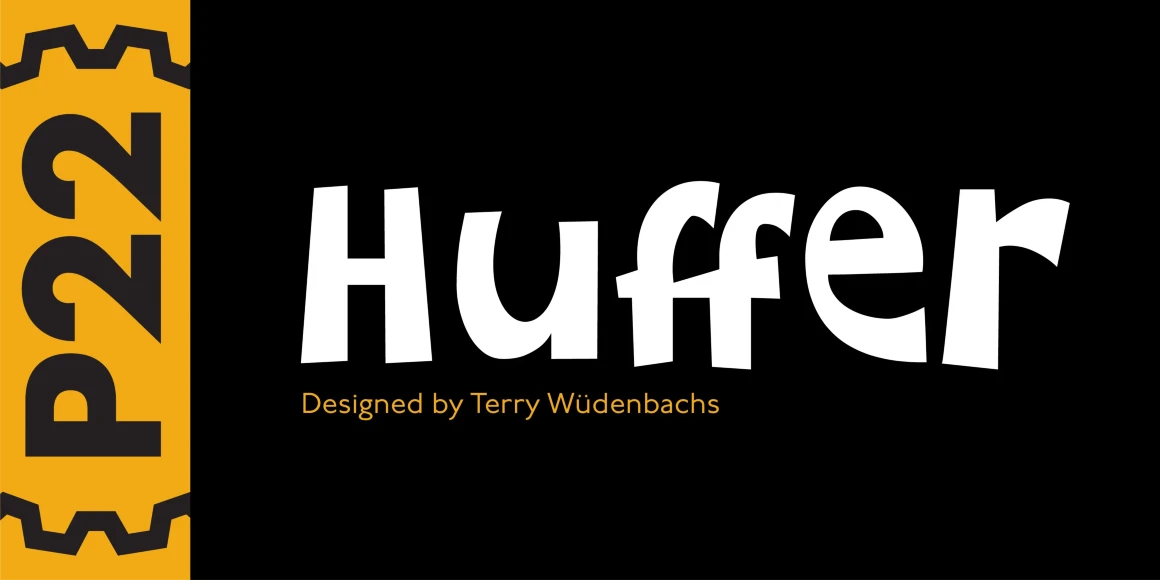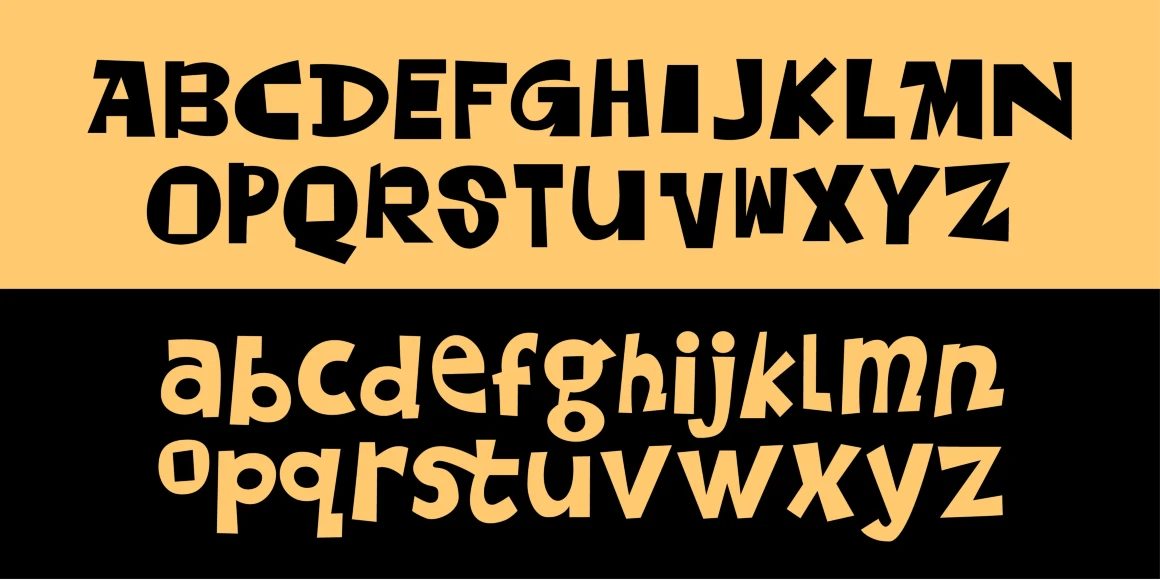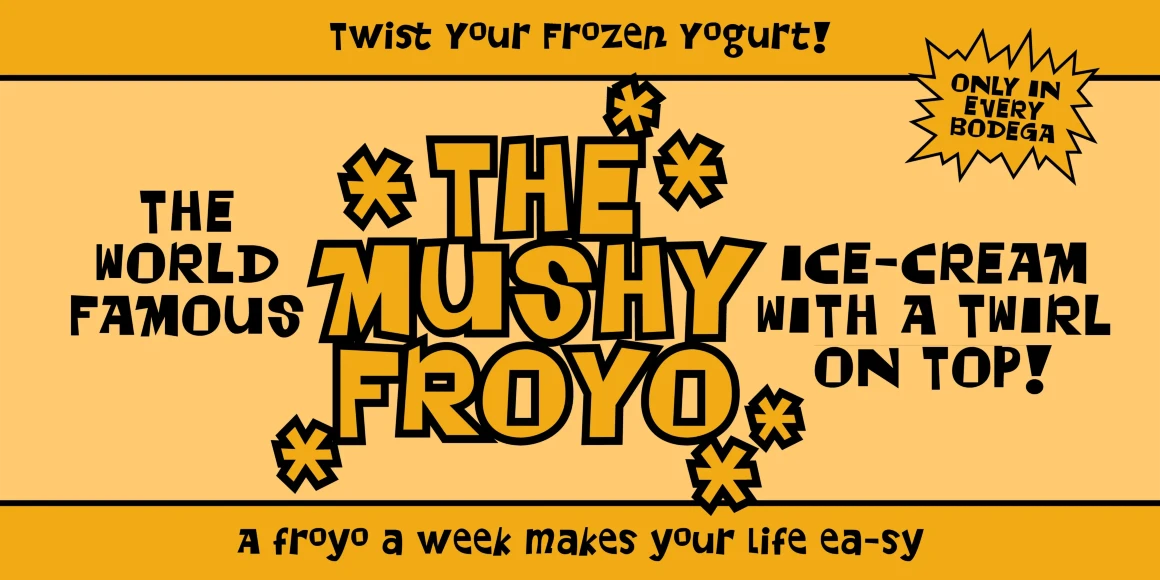
Huffer
Huffer is a chunky and irregular sans-serif font (with a few serifs) that simulates the look of letters crudely cut out of paper. The basic letters were originally inspired by an early 1970s instructional filmstrip dealing with the dangers of glue sniffing. Further inspiration came from other sources of 1960s display lettering. The lower case is almost as tall as the upper case allowing for a mix and match between cases to achieve a more lively display effect.
Designed by Terry Wüdenbachs